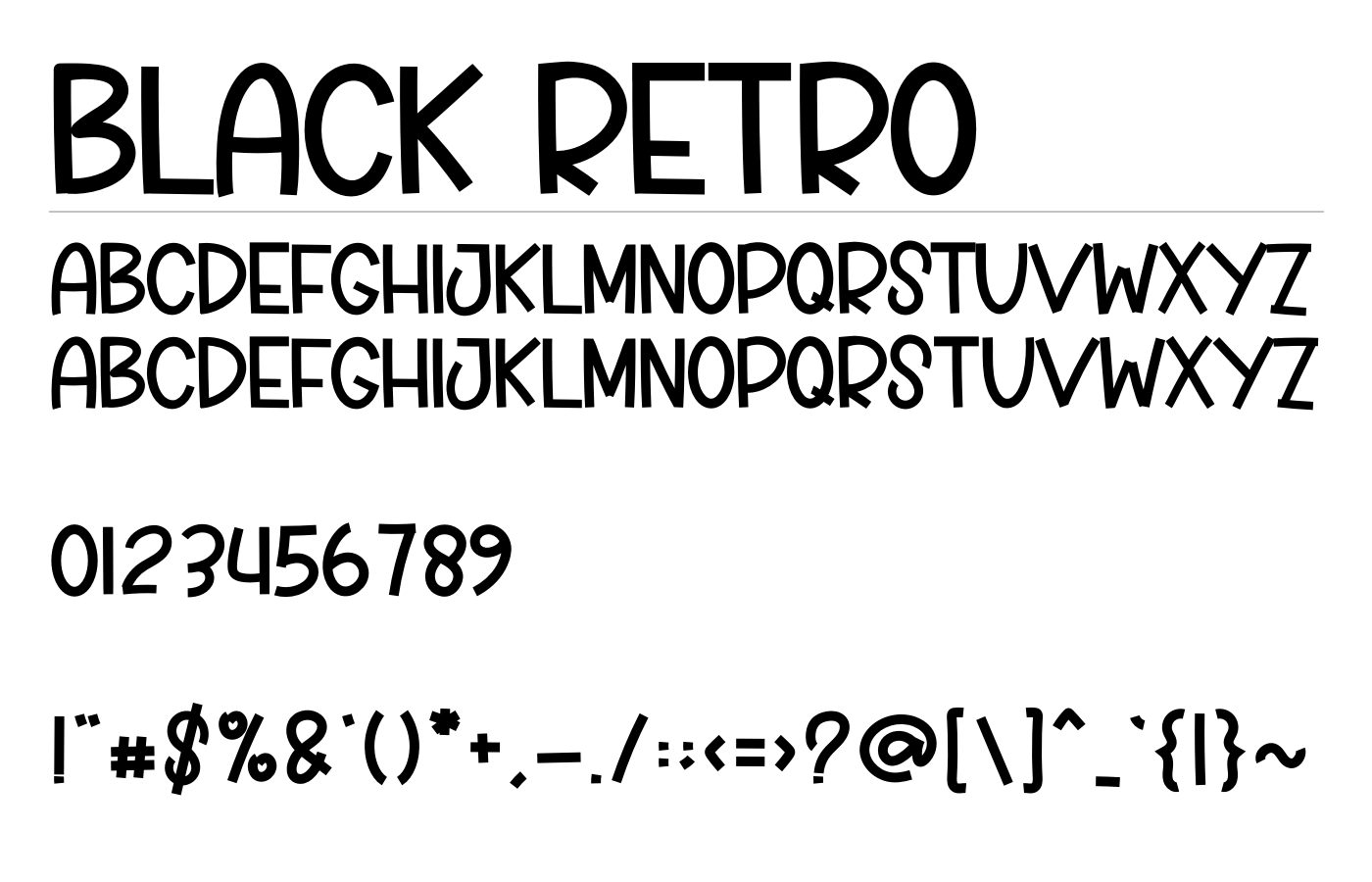
Black Retro Font is a playful, bold sans serif with a hand-drawn, casual feel. Its slightly uneven letterforms and lively strokes give it a vintage yet fun personality, making it perfect for creative projects, children’s designs, or eye-catching headlines that want to convey energy and friendliness. This font works well in informal branding, posters, and packaging where a retro but approachable vibe is desired.
Black Retro Font
About Black Retro Font